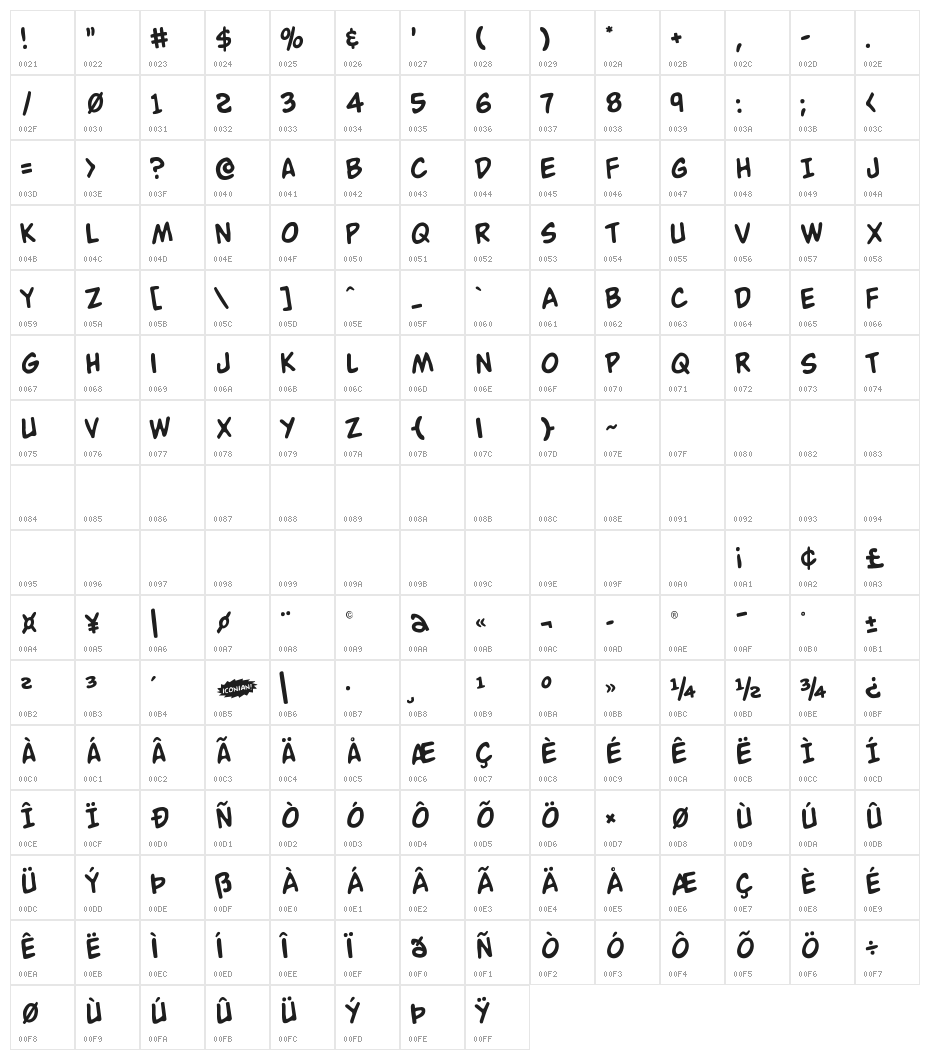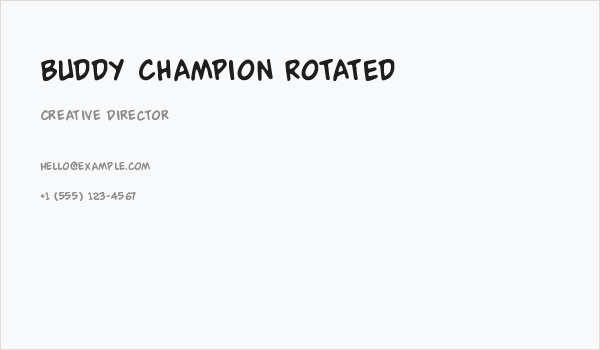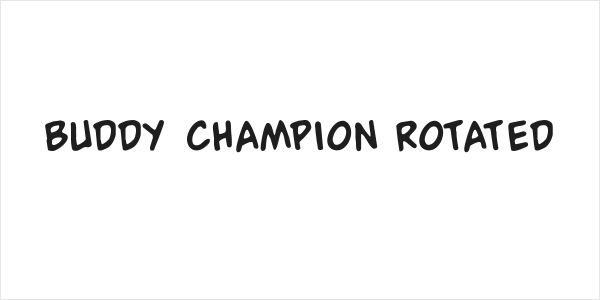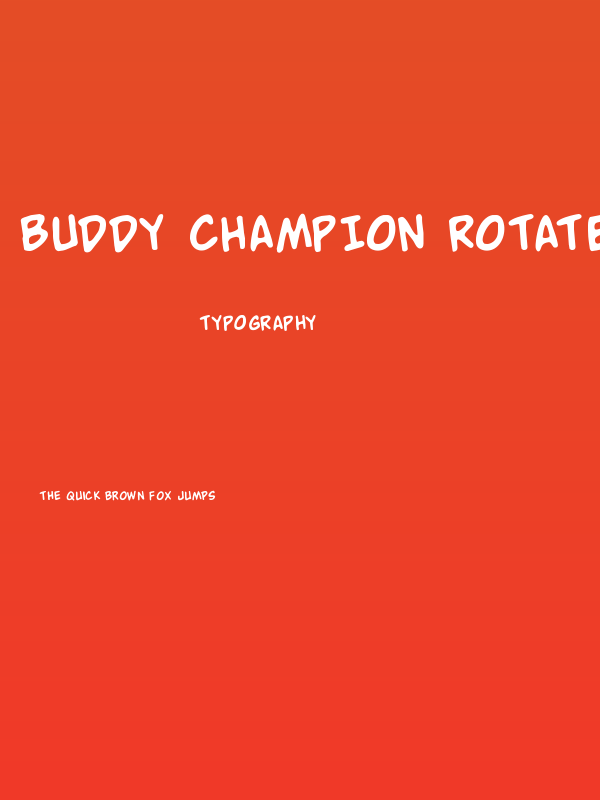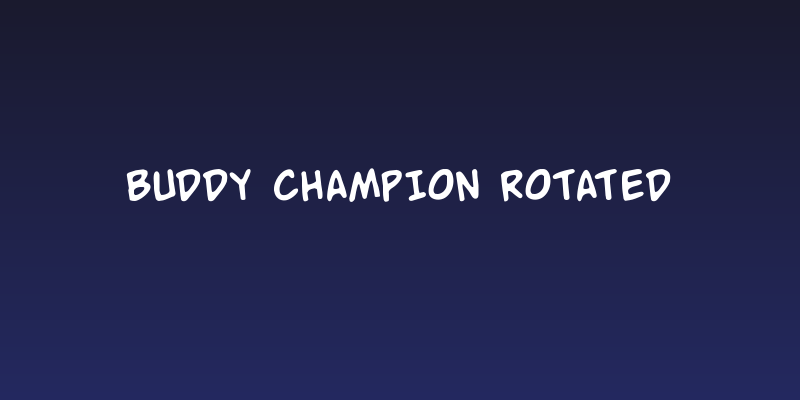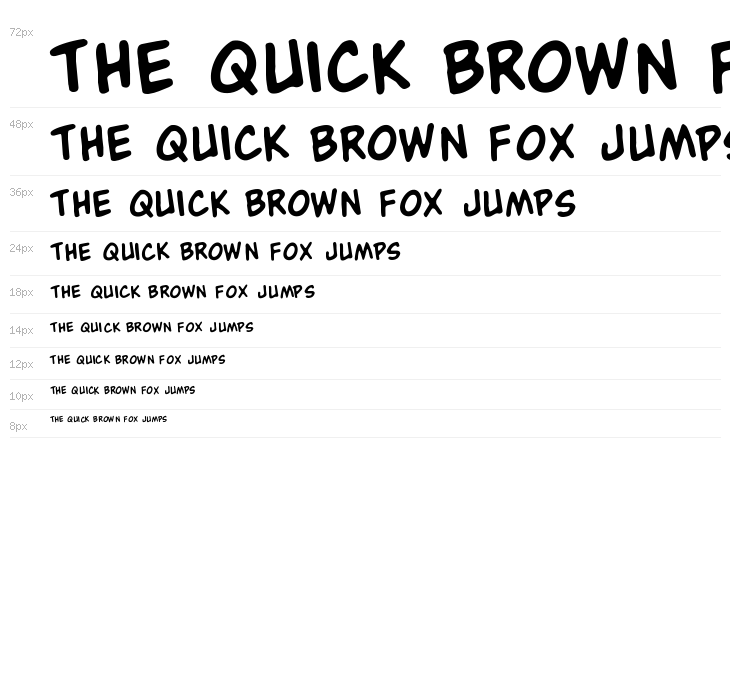
Buddy Champion Rotated Font
Buddy Champion Rotated Description
This playful and bold font features rounded, thick strokes that give it a friendly and approachable appearance. The characters are slightly tilted, adding a dynamic and energetic feel. The uppercase and lowercase letters maintain a consistent style, with a slight variation in size that enhances its casual look. Numbers and special characters are designed to match the overall aesthetic, making it versatile for various uses. The font's informal style makes it suitable for projects that require a fun and engaging tone.
| Proposed Projects | Ideal for children's books, comic strips, playful branding, and casual invitations. |